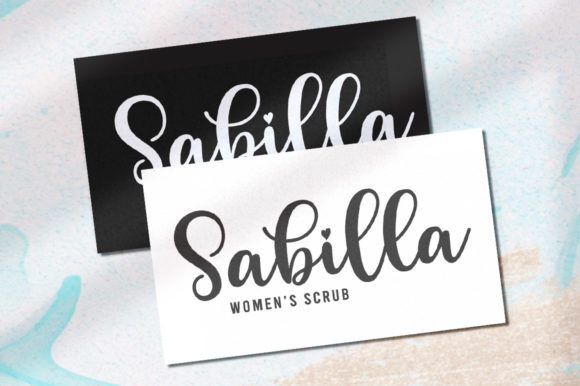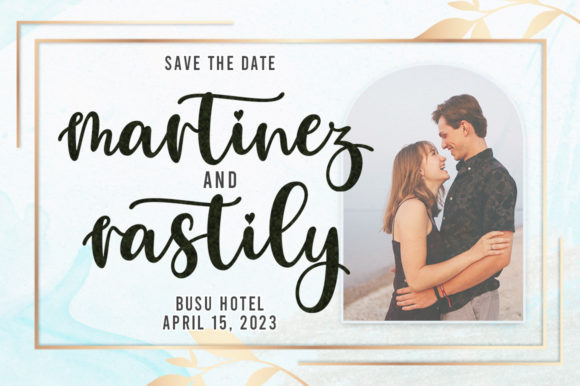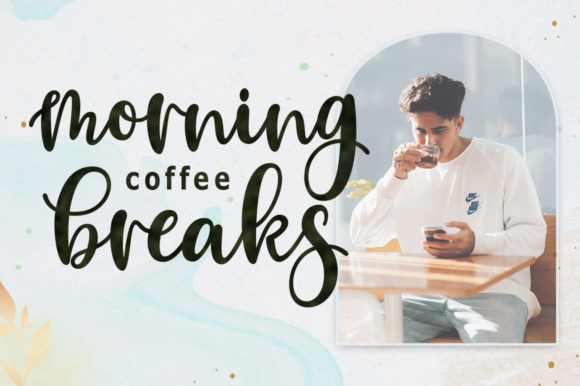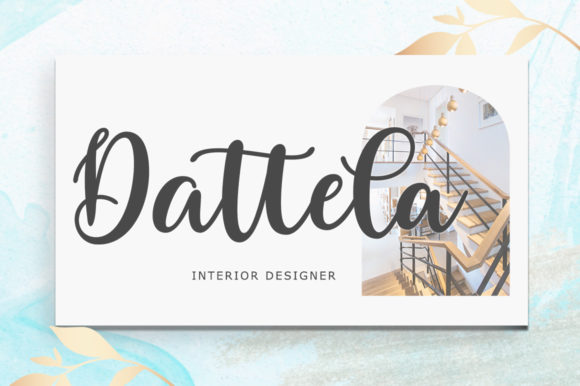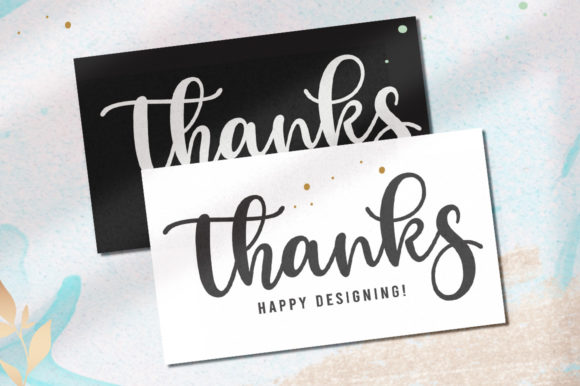
Discover the Magic of Beloved Turtle Font
There’s nothing quite like the thrill of finding the perfect font to elevate your design. You’re browsing through a sea of options, and then – BAM! – you stumble upon a beauty that makes your heart skip a beat. For many designers, this moment is a defining experience that sets the tone for a project’s success.
Enter the enchanting Beloved Turtle Font, a stunning script font that’s sure to captivate your audience. This gorgeous font is designed to help you create breathtaking designs that leave a lasting impression. With its PUA encoding, accessing all glyphs and swashes is a breeze, allowing you to unlock its full potential and bring your vision to life.
Whether you’re a seasoned pro or a budding designer, the Beloved Turtle Font is a valuable addition to your toolkit. Its unique style and versatility make it an ideal choice for a wide range of projects, from elegant invitations to playful branding. So why settle for ordinary when you can have extraordinary with the Beloved Turtle Font?
Beloved Turtle Font Key Features
- Unique Characteristics: The Beloved Turtle Font features a unique, hand-drawn design with a playful and whimsical feel, making it perfect for children’s books, educational materials, and other projects that require a friendly and approachable tone.
Beloved Turtle Font Review
The Beloved Turtle Font is a charming, hand-drawn font that instantly catches the eye. It’s perfect for creating whimsical, playful designs that evoke a sense of nostalgia and warmth. ✨ The rounded edges and soft lines make it an excellent choice for children’s books, stationery, and other projects that require a touch of sweetness.
One of the standout features of the Beloved Turtle Font is its versatility. It comes in a range of weights and styles, allowing designers to customize their designs to suit their needs. ✨ Whether you’re looking for a bold, statement font or a delicate, cursive script, the Beloved Turtle Font has got you covered.
- Whimsical, hand-drawn design that’s perfect for playful projects
- Versatile, with a range of weights and styles to suit different needs
- Instantly recognizable and memorable
- May not be suitable for formal or professional projects due to its playful nature
- Can be difficult to read at small font sizes due to its hand-drawn design
Overall, the Beloved Turtle Font is a delightful addition to any designer’s toolkit. While it may have some limitations, its unique charm and versatility make it a standout choice for designers looking to add a touch of whimsy to their projects.
Tips for Getting the Most Out of the Beloved Turtle Font
For the best results, use the Beloved Turtle Font for headings and titles. You can also pair it with other fonts to create a unique and eye-catching design.
The Beloved Turtle Font is perfect for:
- Children’s book covers
- Wedding invitations
- Brand logos
- Graphic design projects